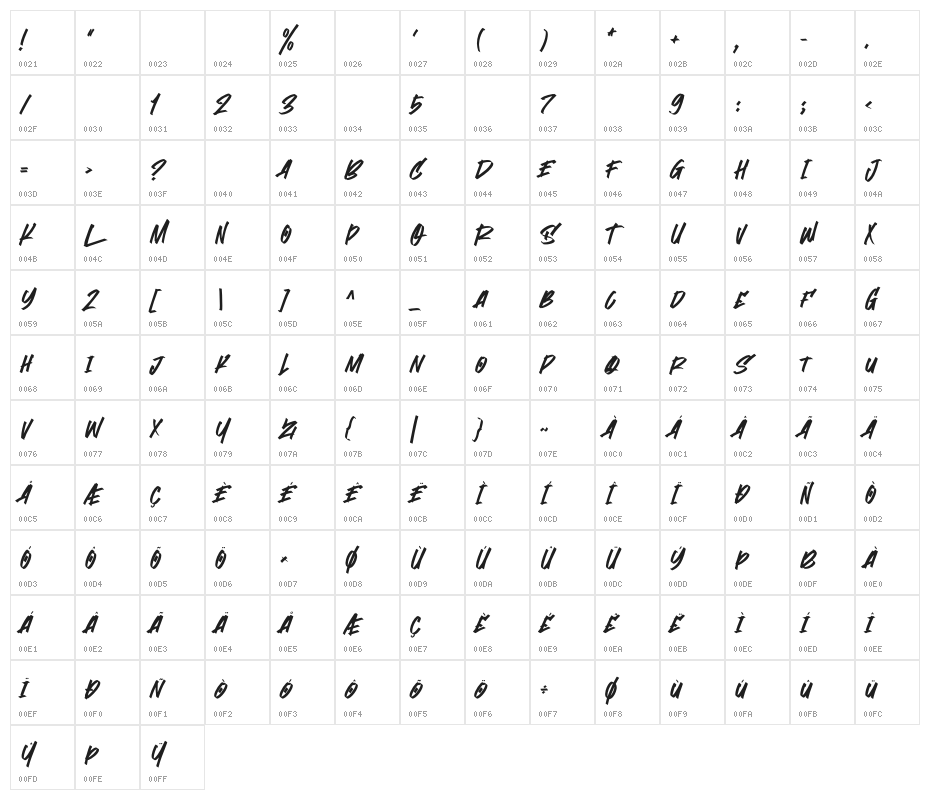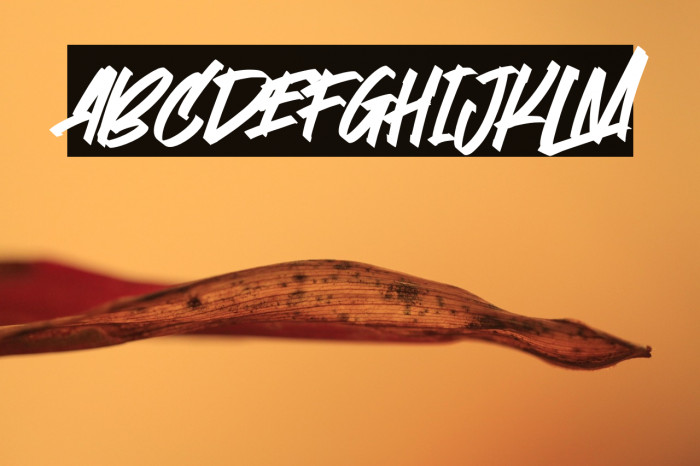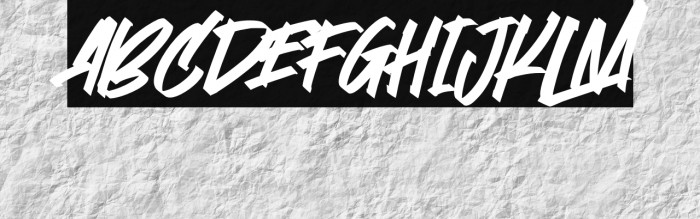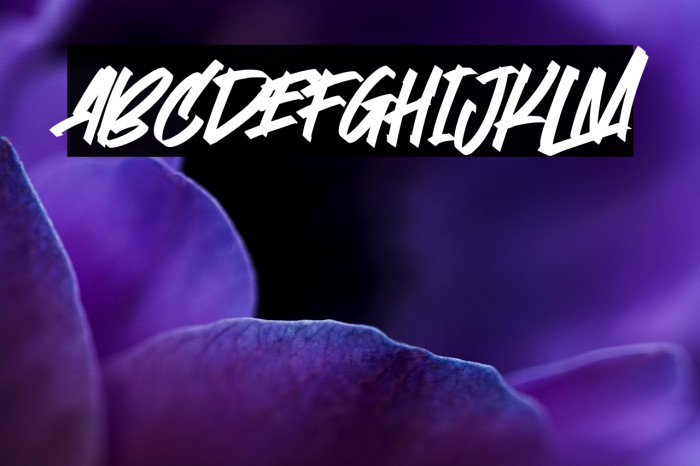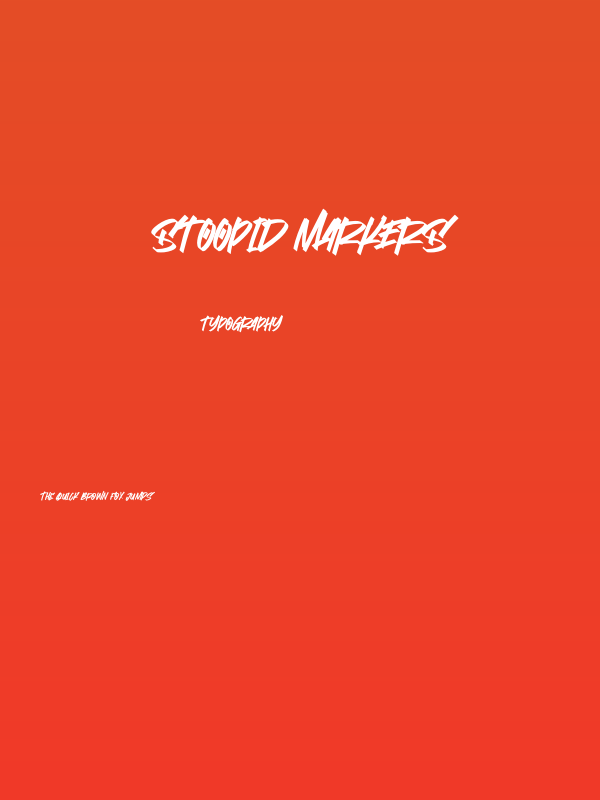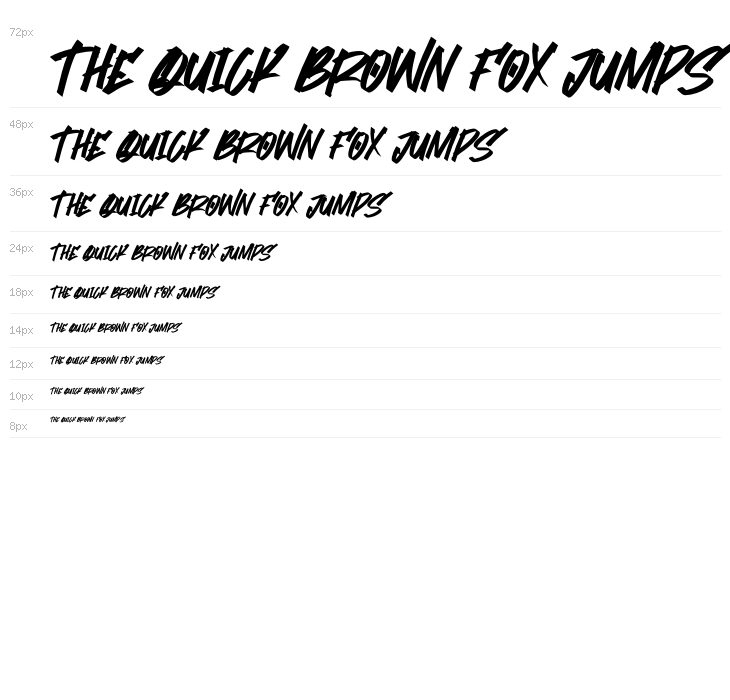
Stoopid Markers Font
Stoopid Markers Description
This font exudes a bold and energetic style, reminiscent of dynamic marker strokes. The characters are crafted with a sense of urgency and flair, featuring sharp angles and a slightly slanted orientation that adds to its expressive nature. The uppercase and lowercase letters maintain a consistent style, while the numerals and special characters complement the overall aesthetic. The font's design is perfect for projects that require a touch of spontaneity and creativity.
| Proposed Projects | Ideal for street art designs, music album covers, event posters, and urban-themed branding. |